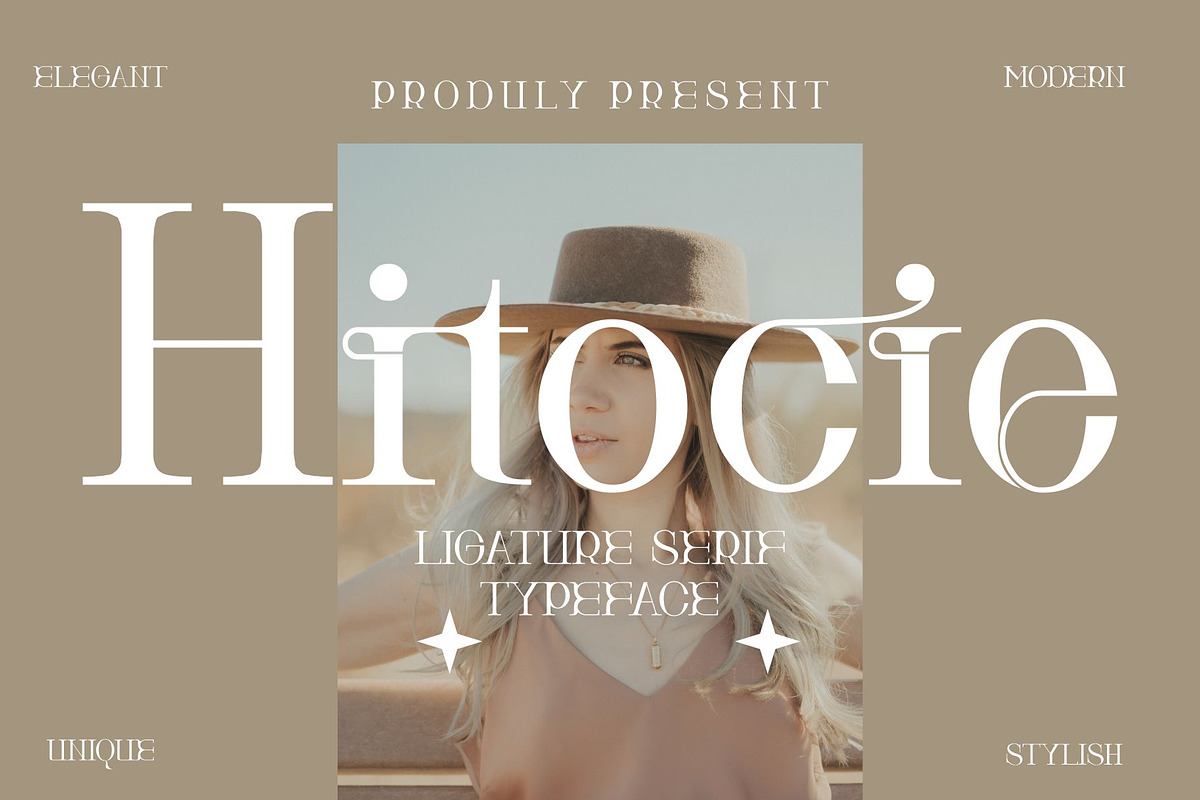
Hitocie Ligature Serif Typeface Free Download is a sophisticated and elegant serif font that combines modern design with traditional serif characteristics. With its clean lines, sharp serifs, and intricate ligatures, this typeface is perfect for high-end branding, editorial layouts, luxury logos, and upscale packaging.
The unique ligatures in Hitocie give it a distinct, artistic flair, while maintaining a strong sense of readability and elegance. Whether you're designing a fashion brand, a chic website, or a luxury product, this font brings both refinement and style to your typography.